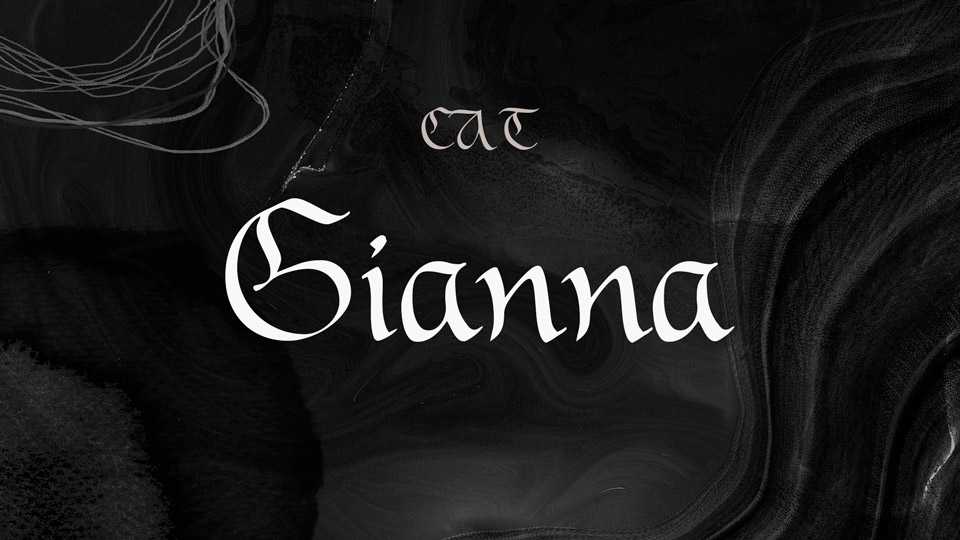
Download Gianna font, a blackletter typeface with elegant swashes and beautiful ligatures. Gianna is a very calligraphic font, suitable for formal applications, an excellent choice for wedding design, cards, letters and more.